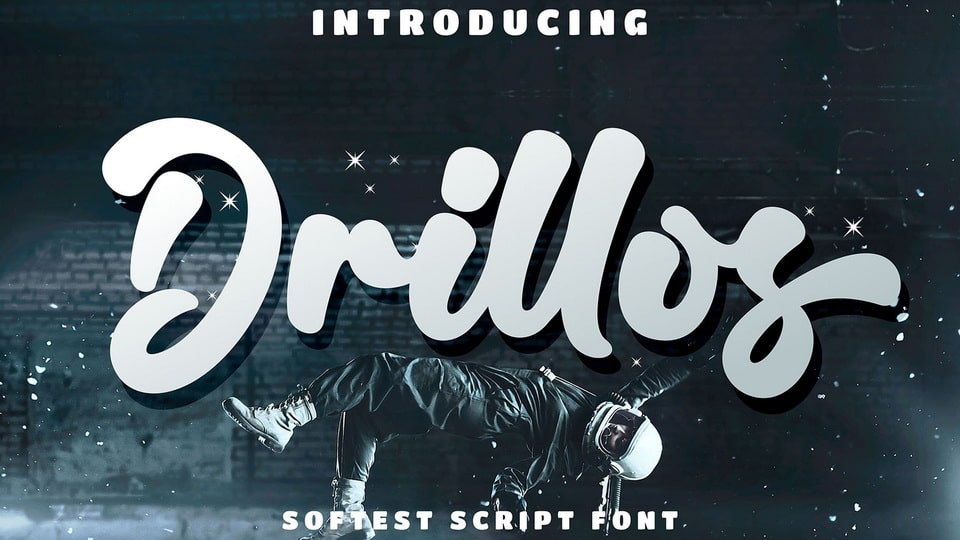
Download Drillos font, a hand drawn typeface inspired by the shape of a balloon which has rounded curves so that the font looks elastic and feels soft.